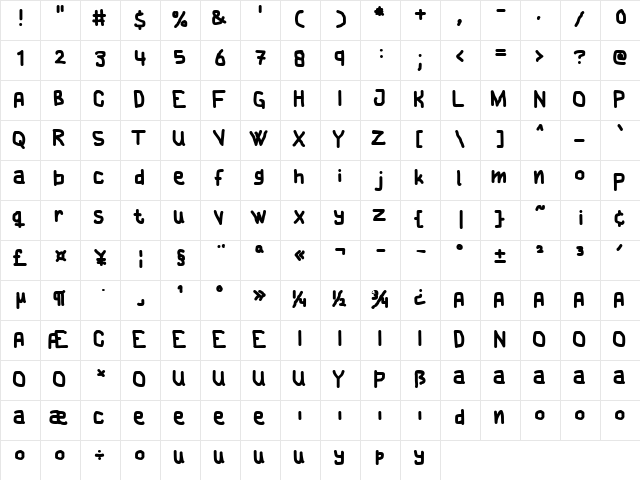
Cake! Regular
Design Context for Cake! Typeface
Cake! is a composed and adaptable typeface that performs quietly and consistently across a wide range of design contexts.